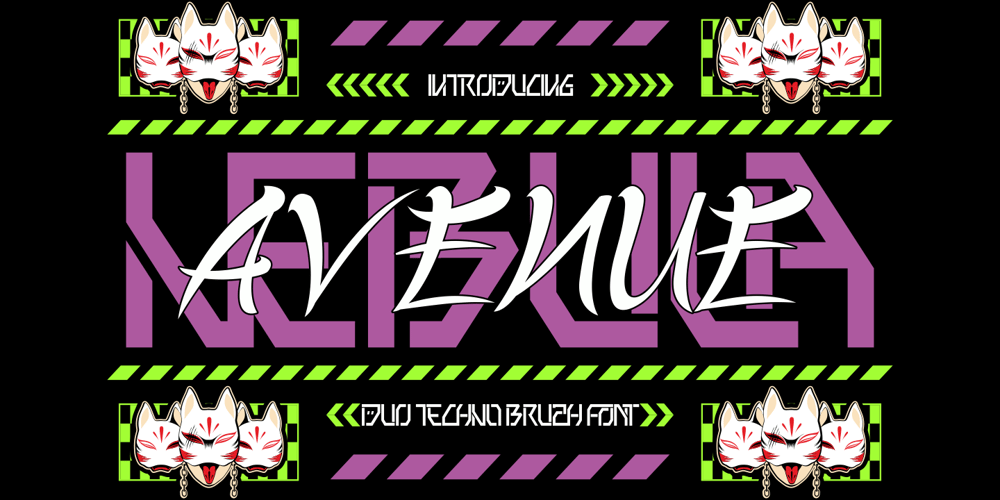
Nebula Avenue
Nebula Avenue font
Nebula Avenue Font Family was designed by Putra Novembria Candra Kusuma and published by Putracetol. Nebula Avenue contains 2 styles and family package options. Introducing Nebula Avenue, a captivating duo font that fuses the futuristic vibe of techno with the bold aesthetics of a brush script. This unique combination makes Nebula Avenue perfect for designs that demand both modernity and artistic flair. Inspired by sci-fi and Japanese calligraphy, this font exudes an avant-garde style that’s ideal for any project looking to make a striking impact. Whether you’re creating logos, branding materials, posters, or packaging, Nebula Avenue provides a dynamic contrast between sharp, geometric lines and flowing, expressive strokes. This versatile typeface effortlessly transitions between professional and edgy, making it a great choice for everything from corporate branding to creative displays.Nebula Avenue stands out with its Y2K-inspired aesthetic, blending the nostalgia of early digital culture with contemporary design trends. Its techno typeface is perfect for futuristic themes, while the brush script adds a handcrafted touch that brings warmth and personality to your designs. Use it to create bold headlines, stylish invitations, or eye-catching stickers. This duo font set is a must-have for designers looking to push the boundaries and experiment with unique typographic styles. Transform your projects with the futuristic elegance of Nebula Avenue and make a statement that resonates across the digital and physical realms.